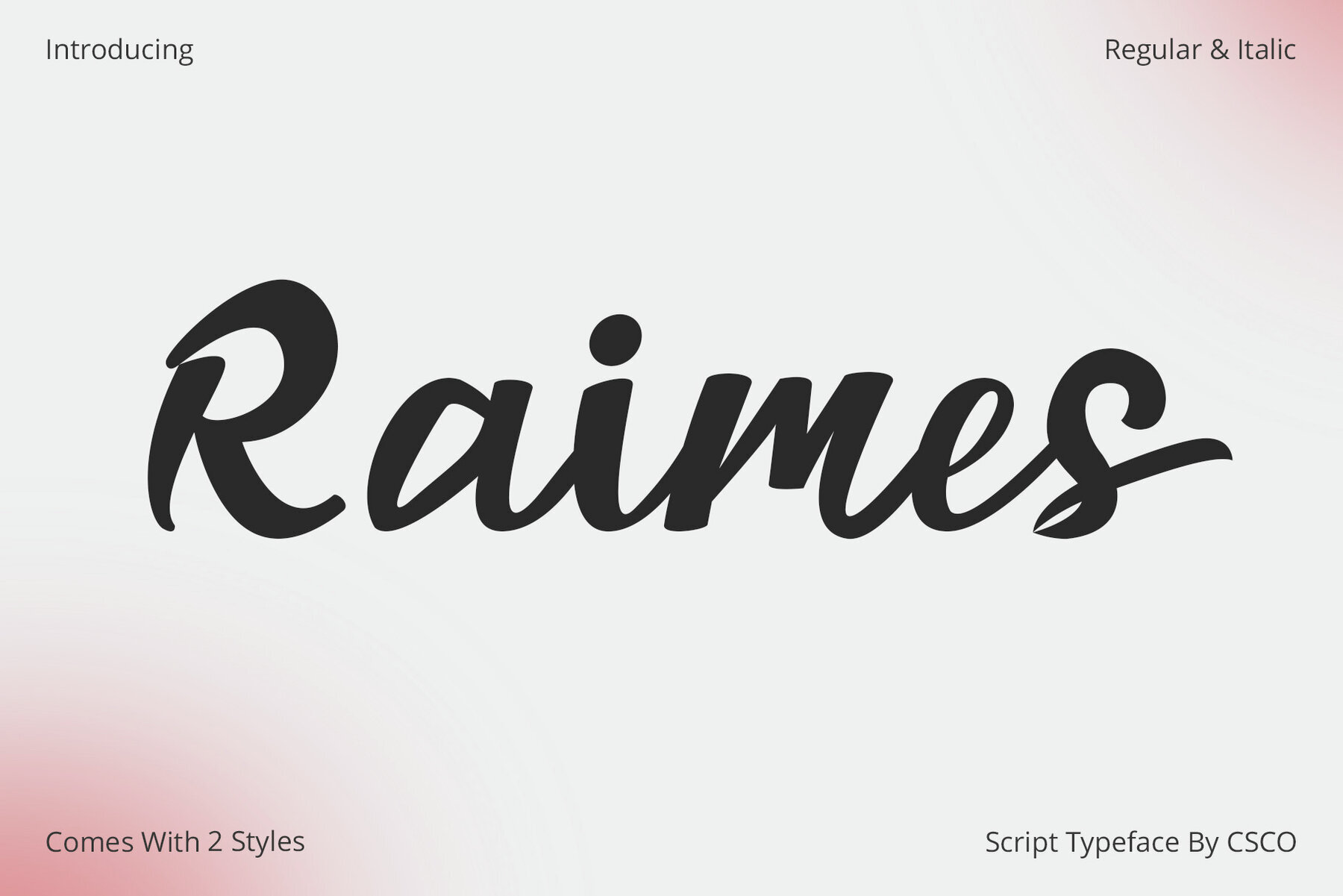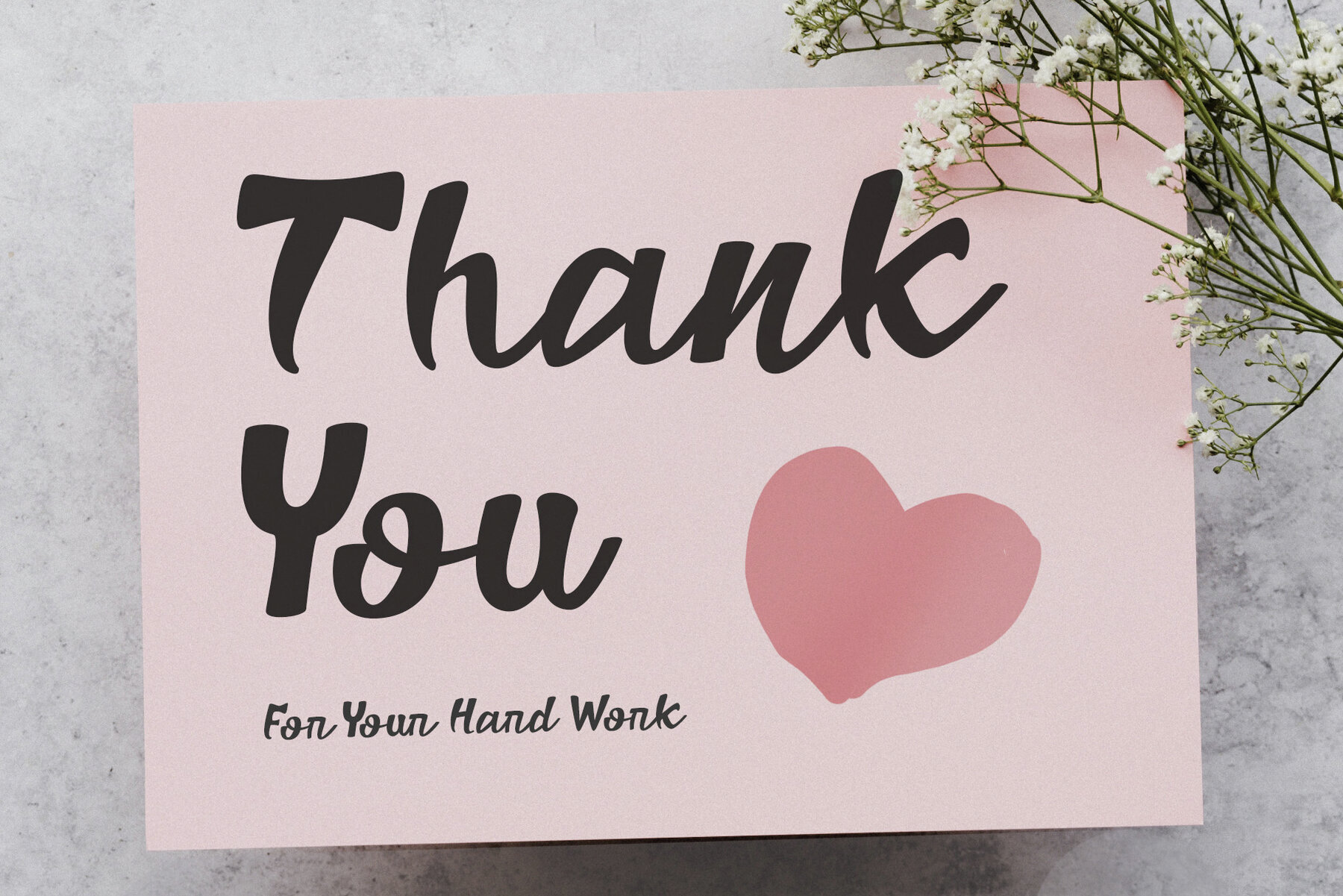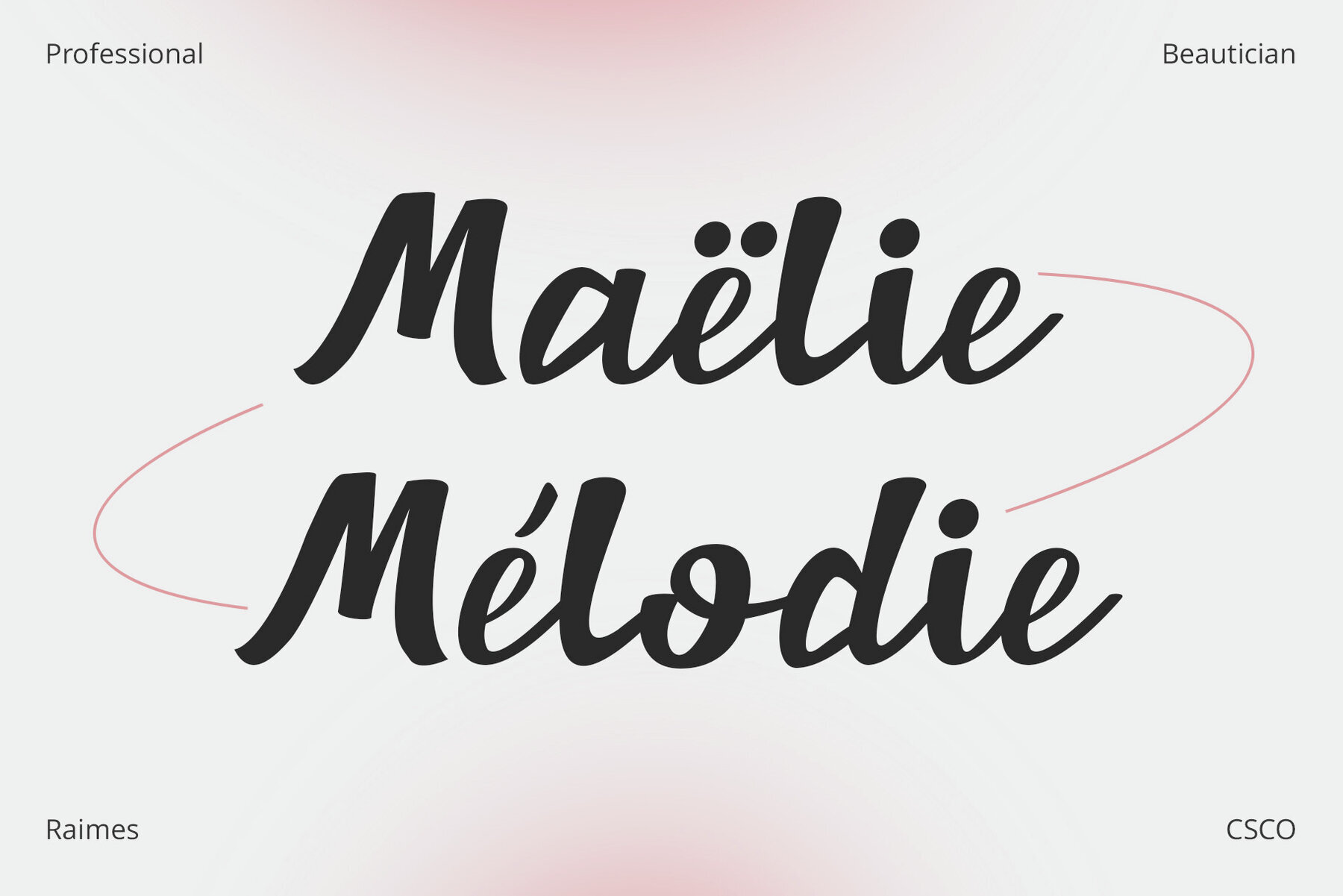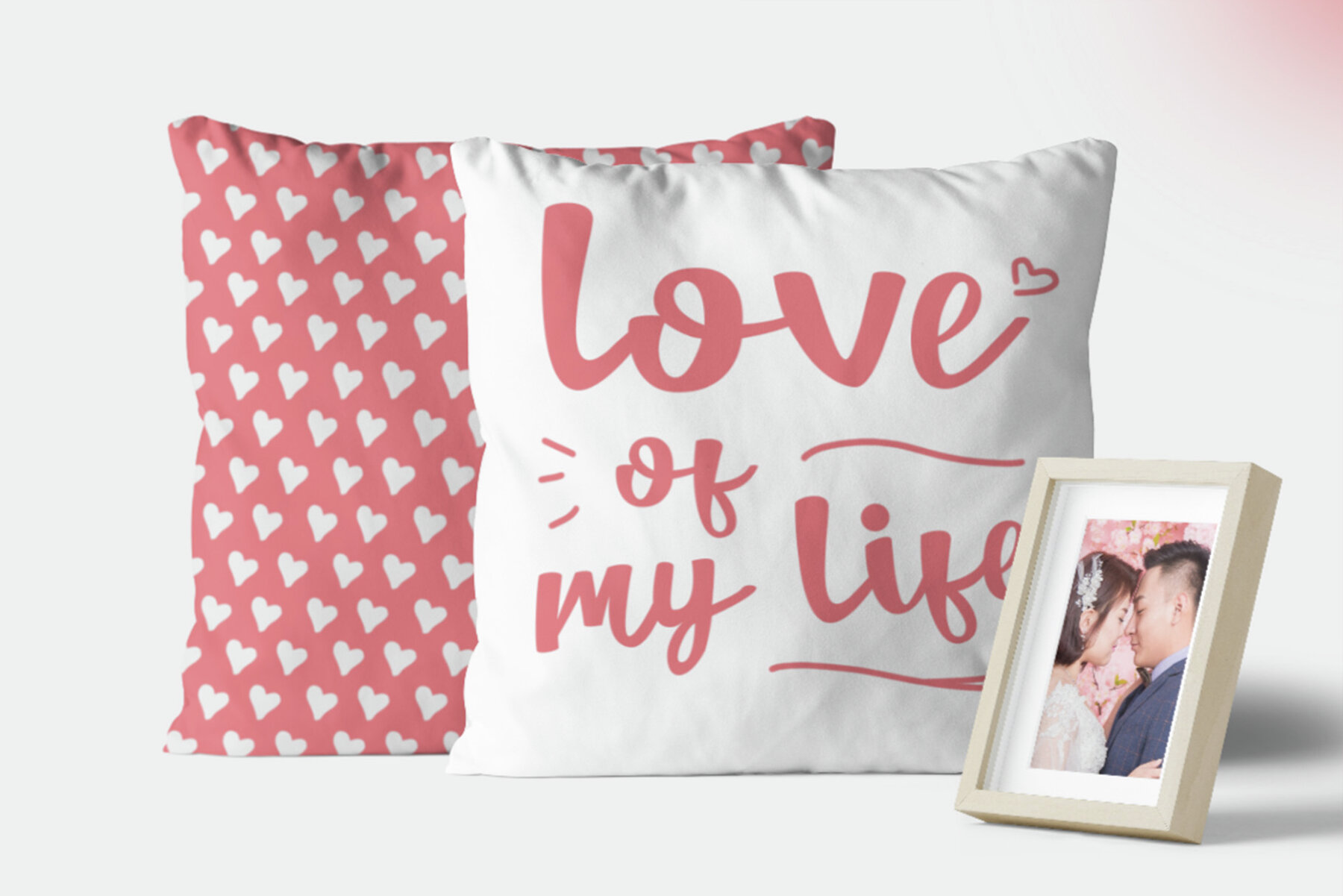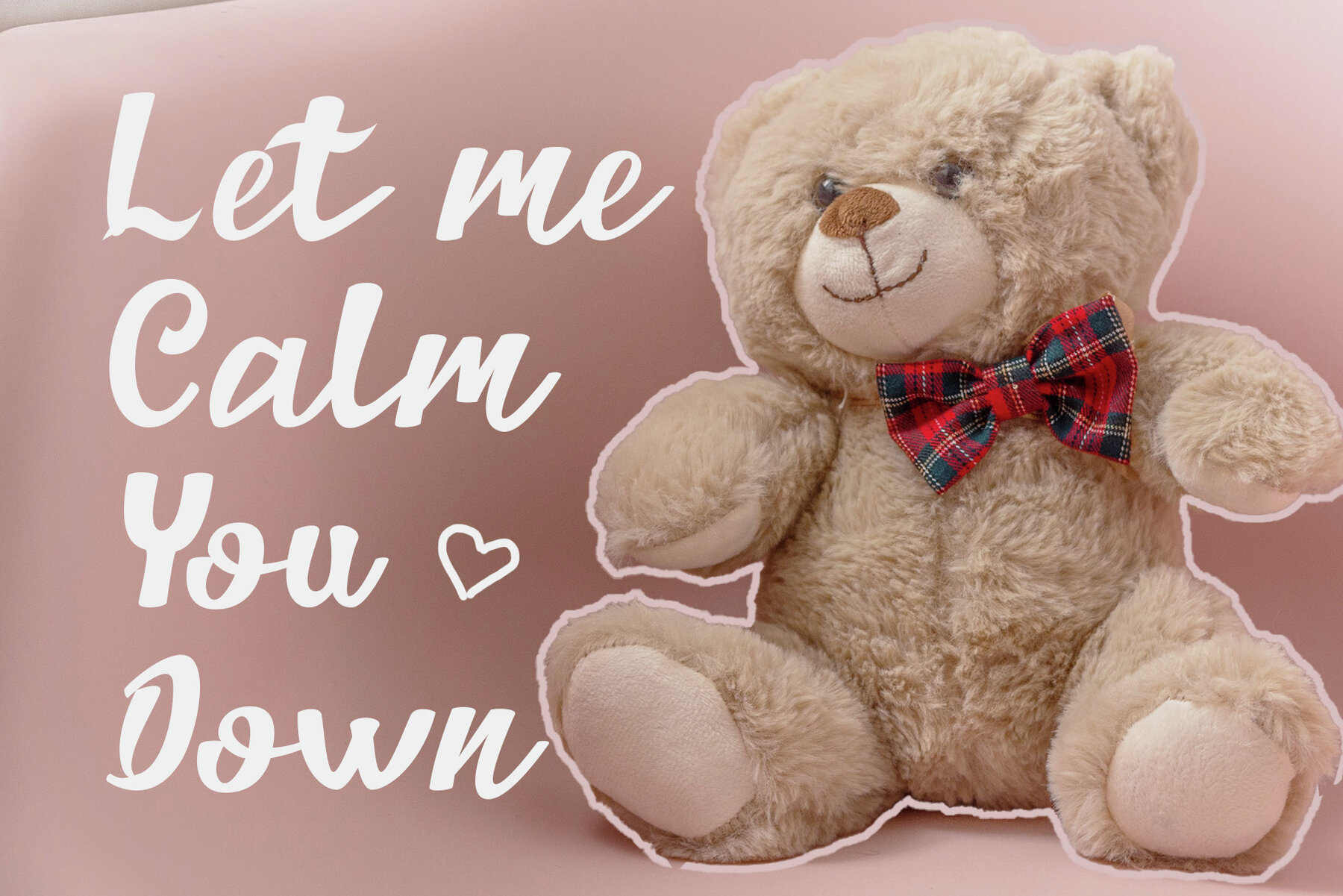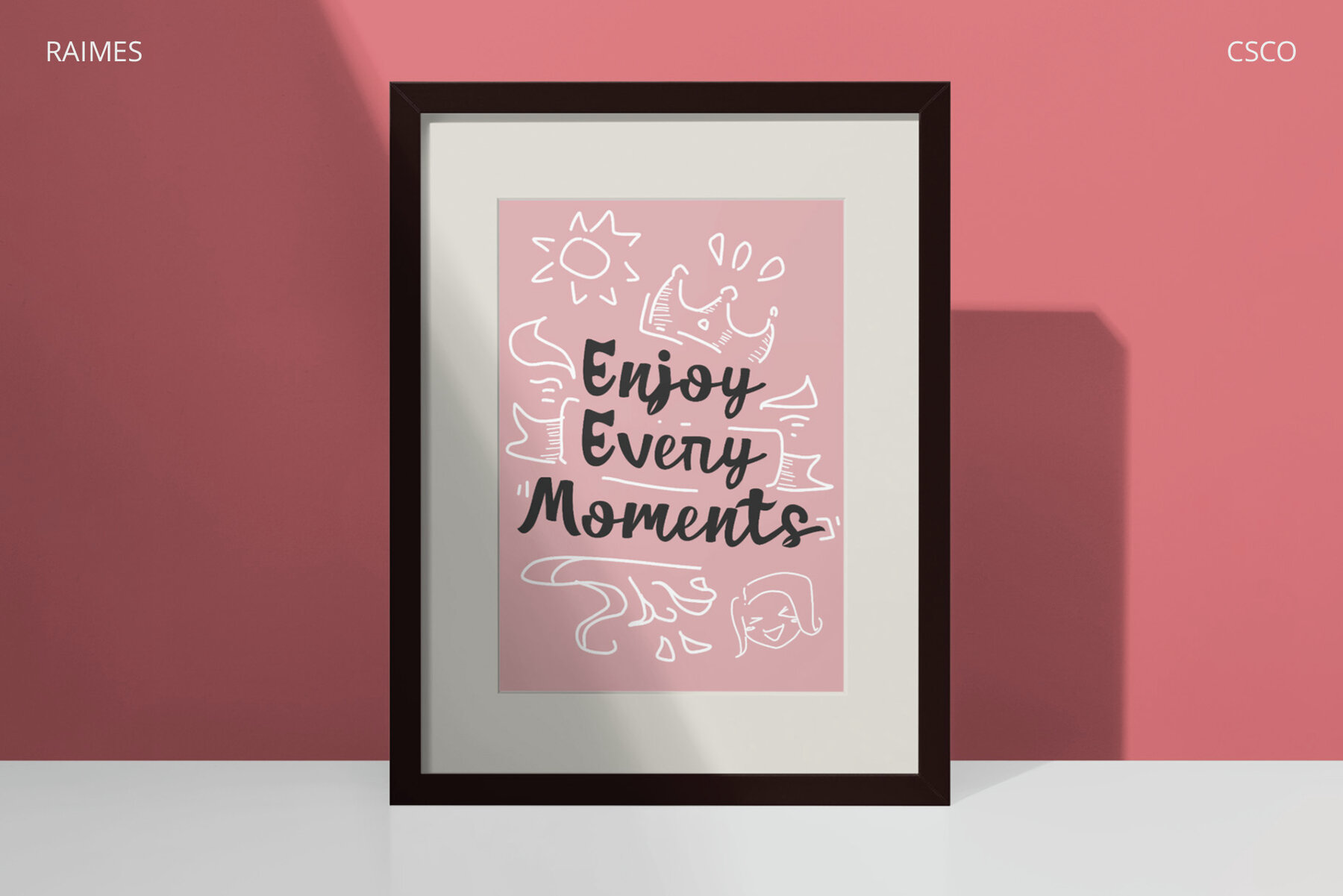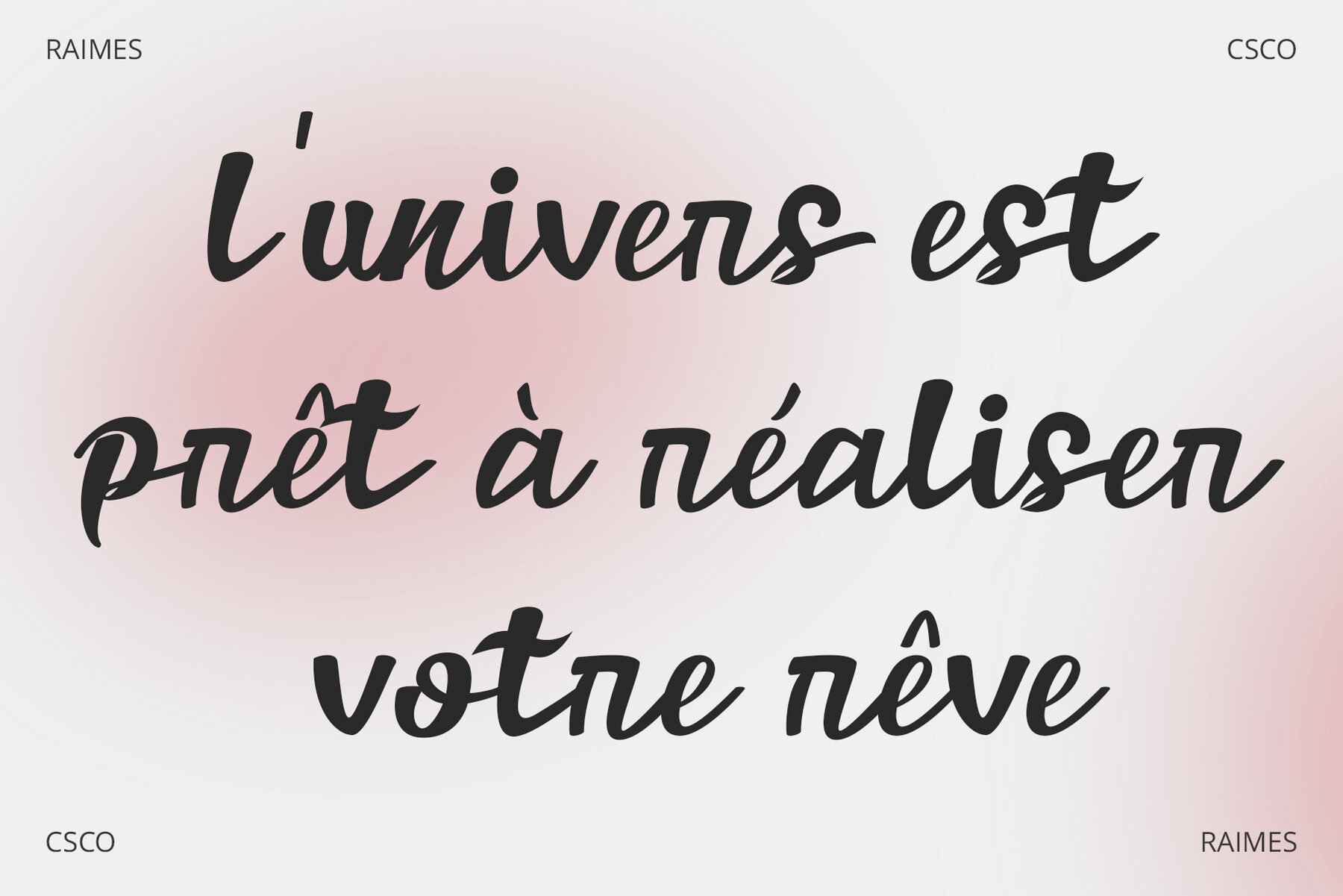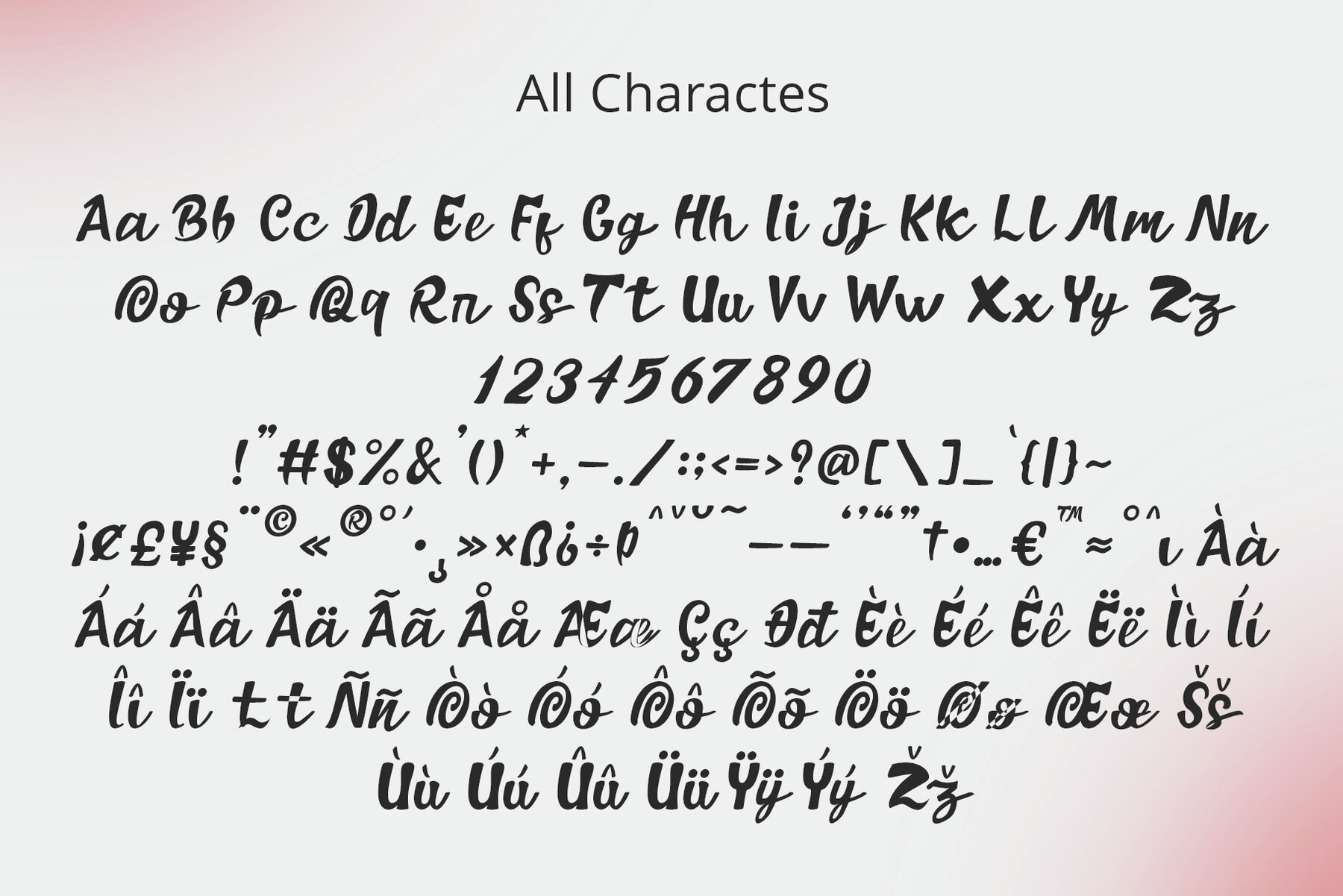
Raimes Font
Meet Raimes, a script typeface that effortlessly infuses charm and playfulness into your designs. Raimes boasts a whimsical elegance, perfect for a wide range of creative projects, adding a delightful touch of fun to your content. Raimes' versatility shines through, making it an ideal choice for various creative endeavors, including branding, invitations, and more.Raimes: Charming and Playful Script Typeface
Whimsical Elegance
Versatile for Creative Projects